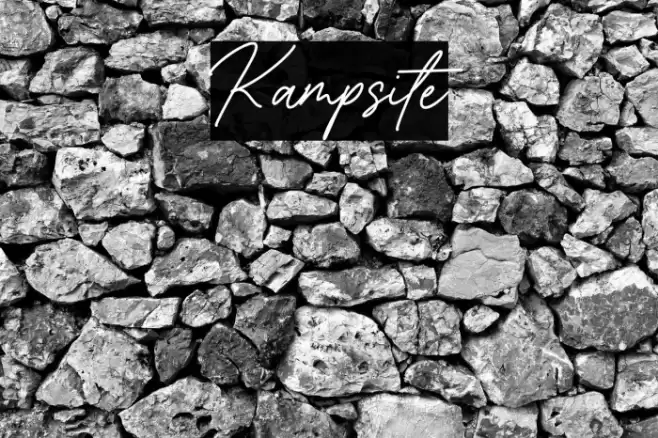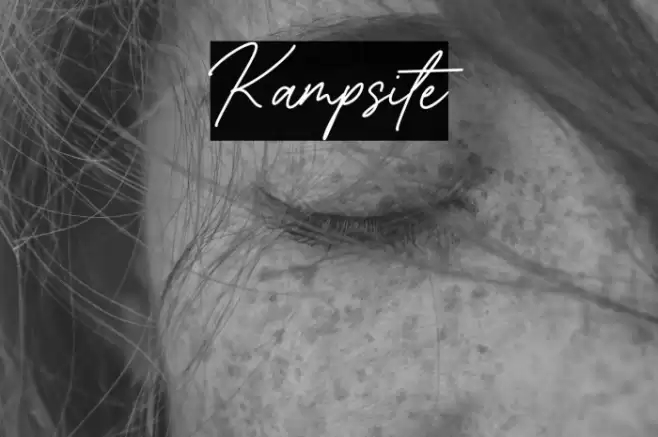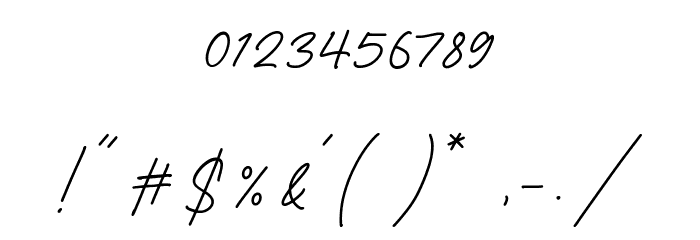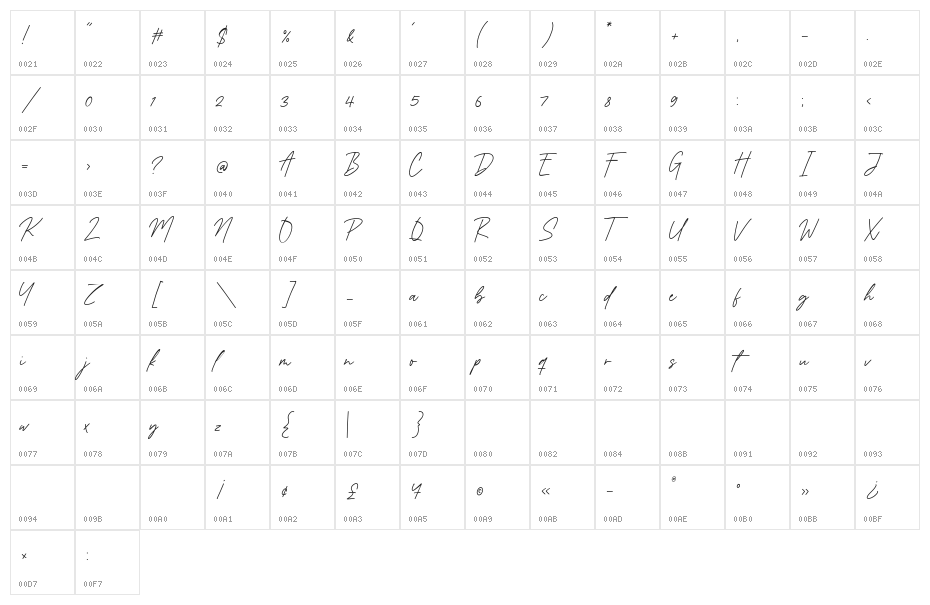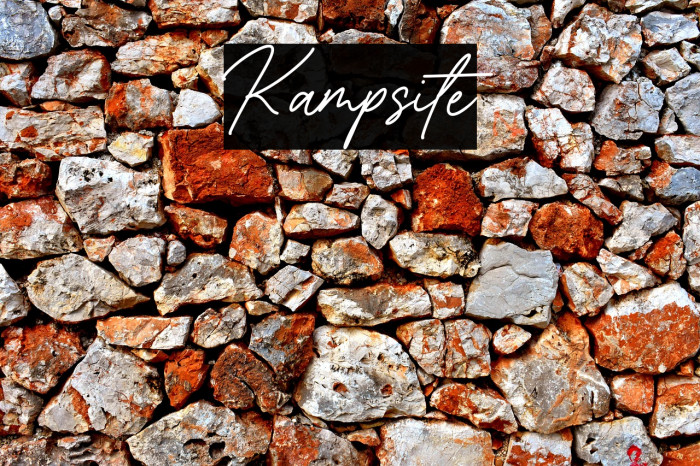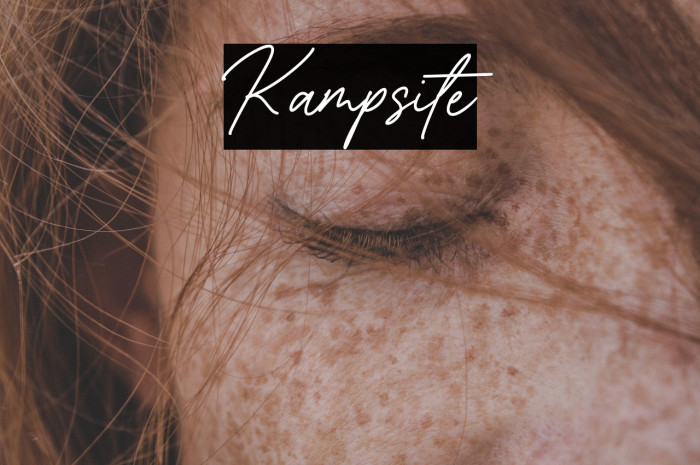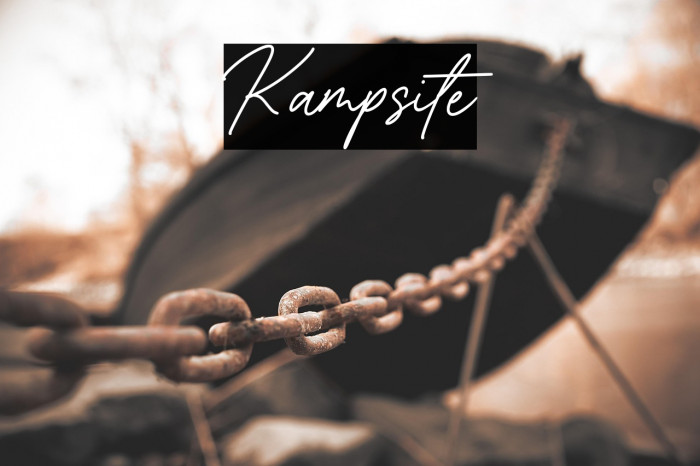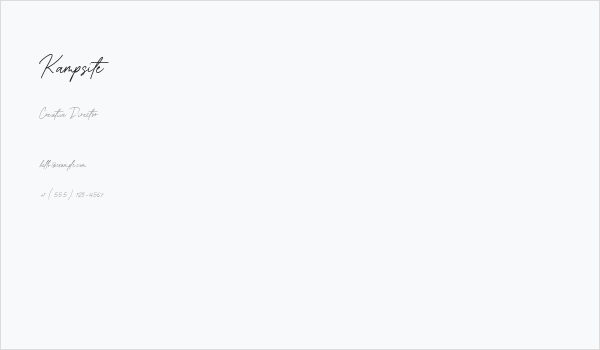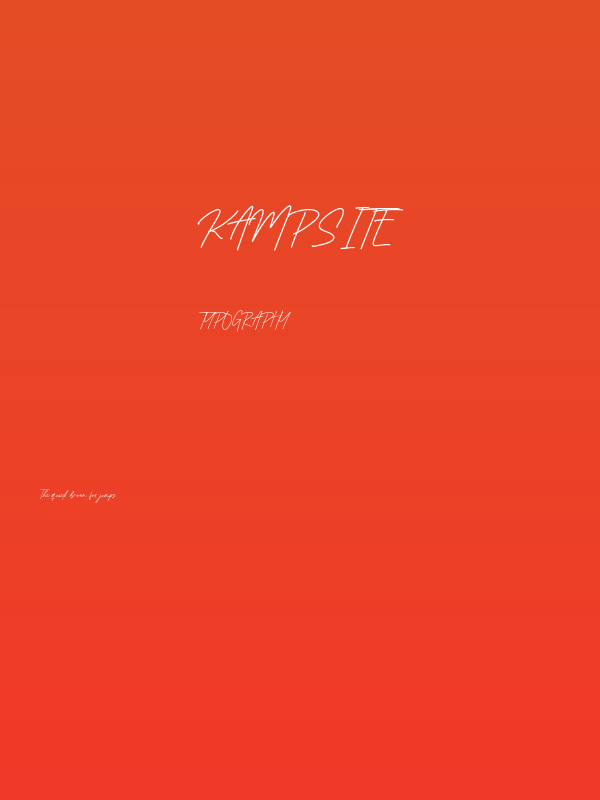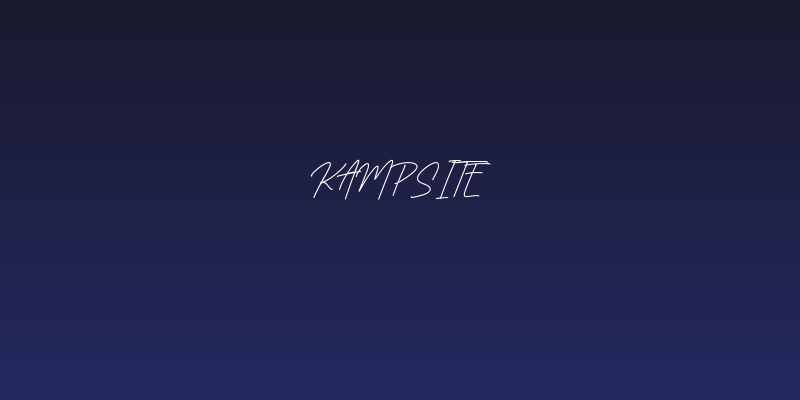
Kampsite Font
Kampsite Description
This font features a handwritten, cursive style that exudes a casual and personal touch. The letters are elegantly connected, with a fluid motion that mimics natural handwriting. The uppercase letters are slightly more structured, while the lowercase letters maintain a consistent flow. Numbers and special characters are designed to match the overall style, ensuring a cohesive look. The strokes are thin, with a medium contrast that adds to the legibility and charm of the font. This style is perfect for projects that require a personal, friendly, and approachable feel.
A handwritten, cursive font with a casual and elegant style from Uncategorized fonts.
- Proposed Projects: Ideal for wedding invitations, personal letters, greeting cards, and branding that requires a personal touch.
- Overall Style: Casual, Elegant
- Use Case: Logos, Invitations, Personal Correspondence